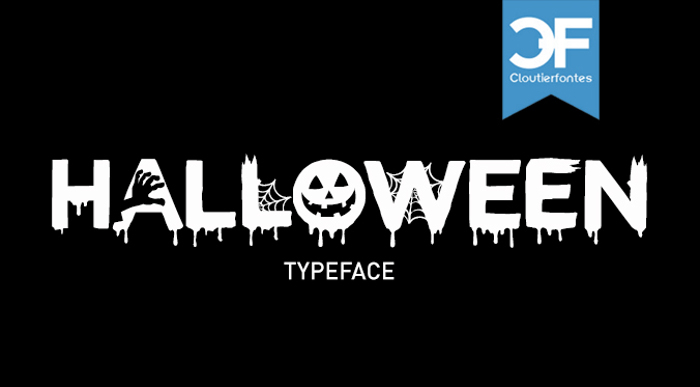
CF Halloween Font
For the sixth consecutive year, I offer a superb font for Halloween. This font is perfect for your personal or commercial projects.